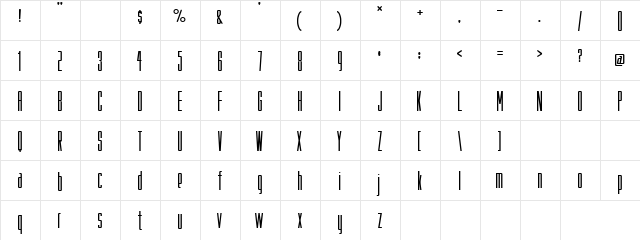
squarina thin Regular
Design Context for squarina thin Typeface
squarina thin offers clean, dependable letterforms without strong stylistic allegiance, making it a practical choice for designers who need flexibility. Its slender proportions lend an understated elegance to any composition.